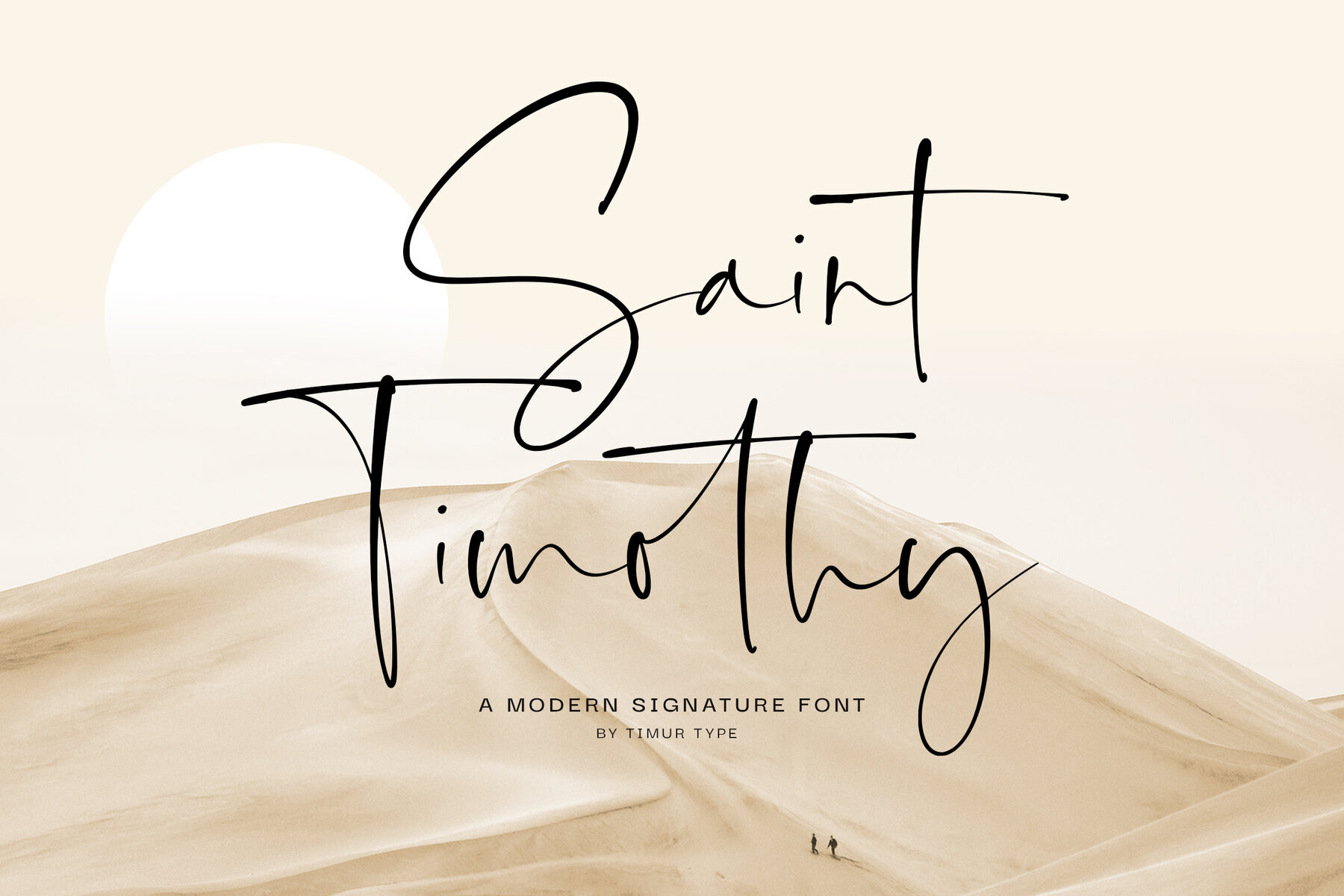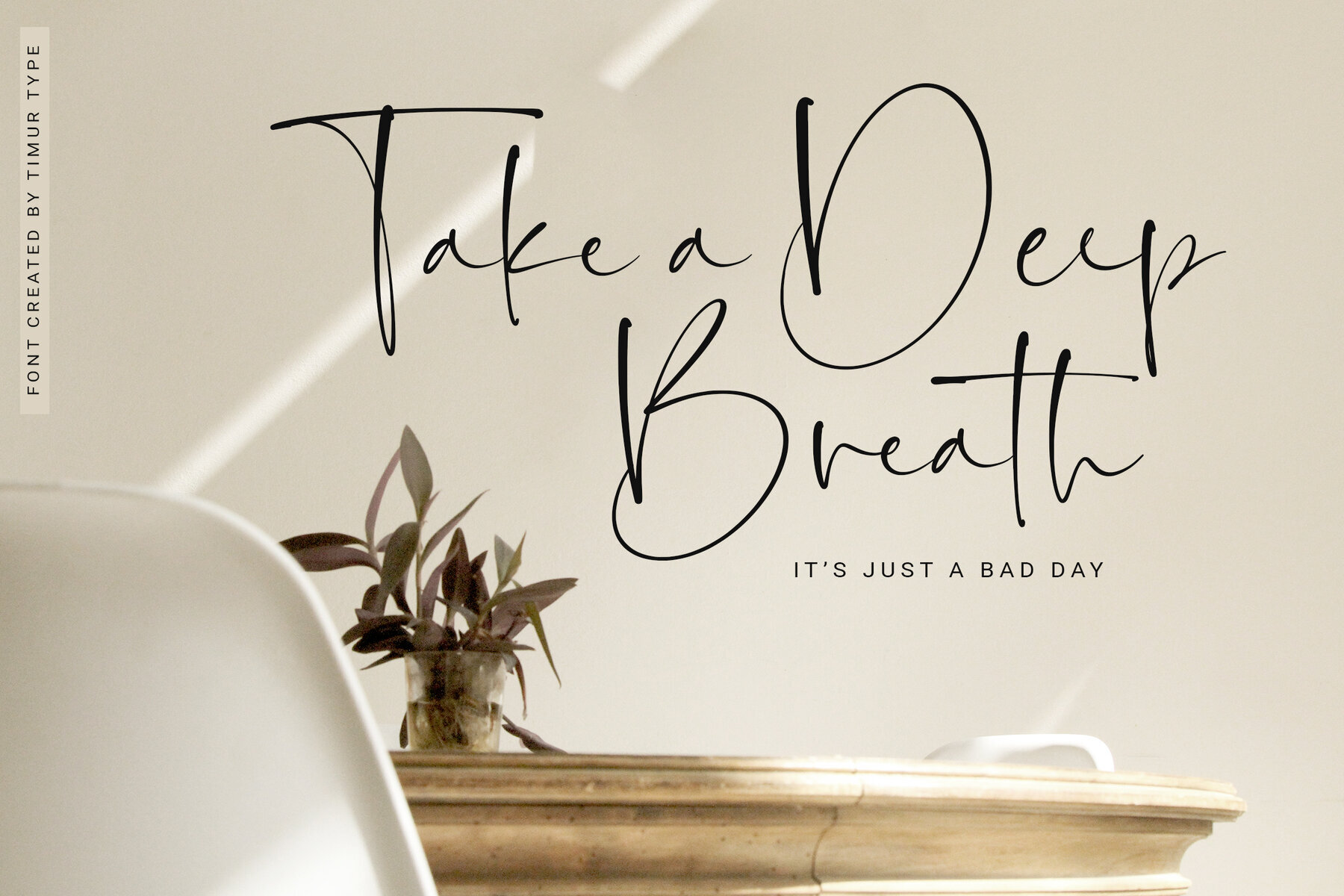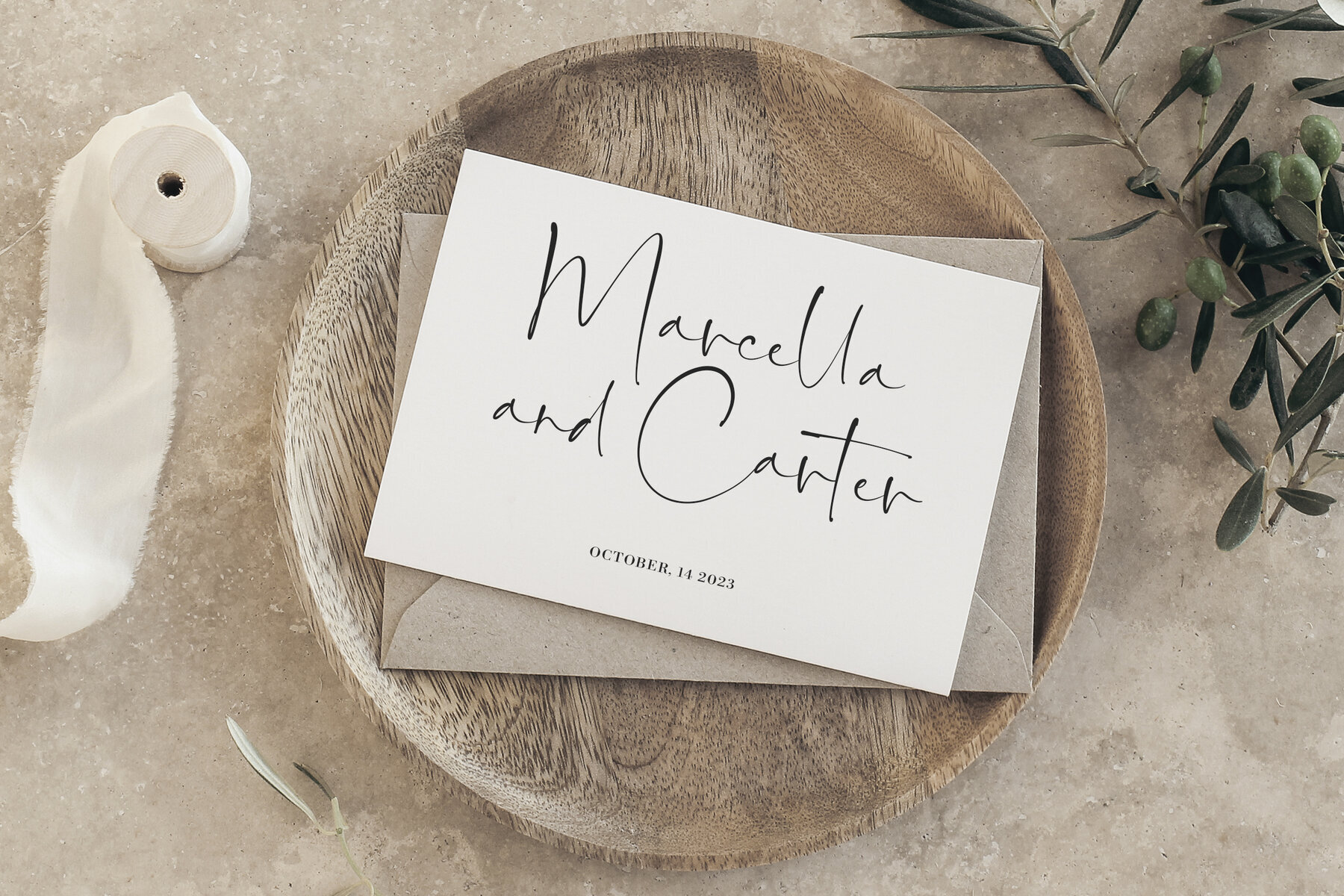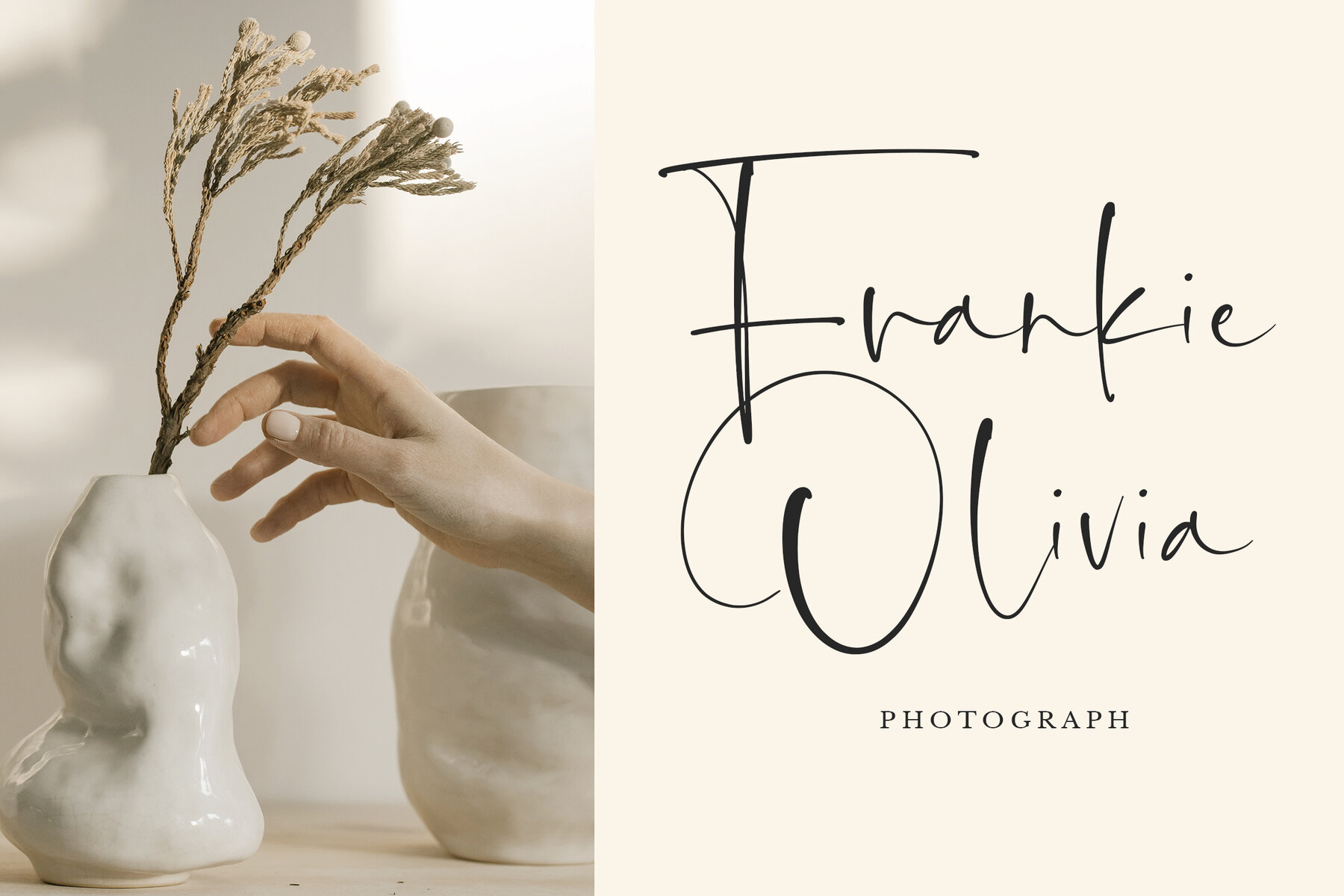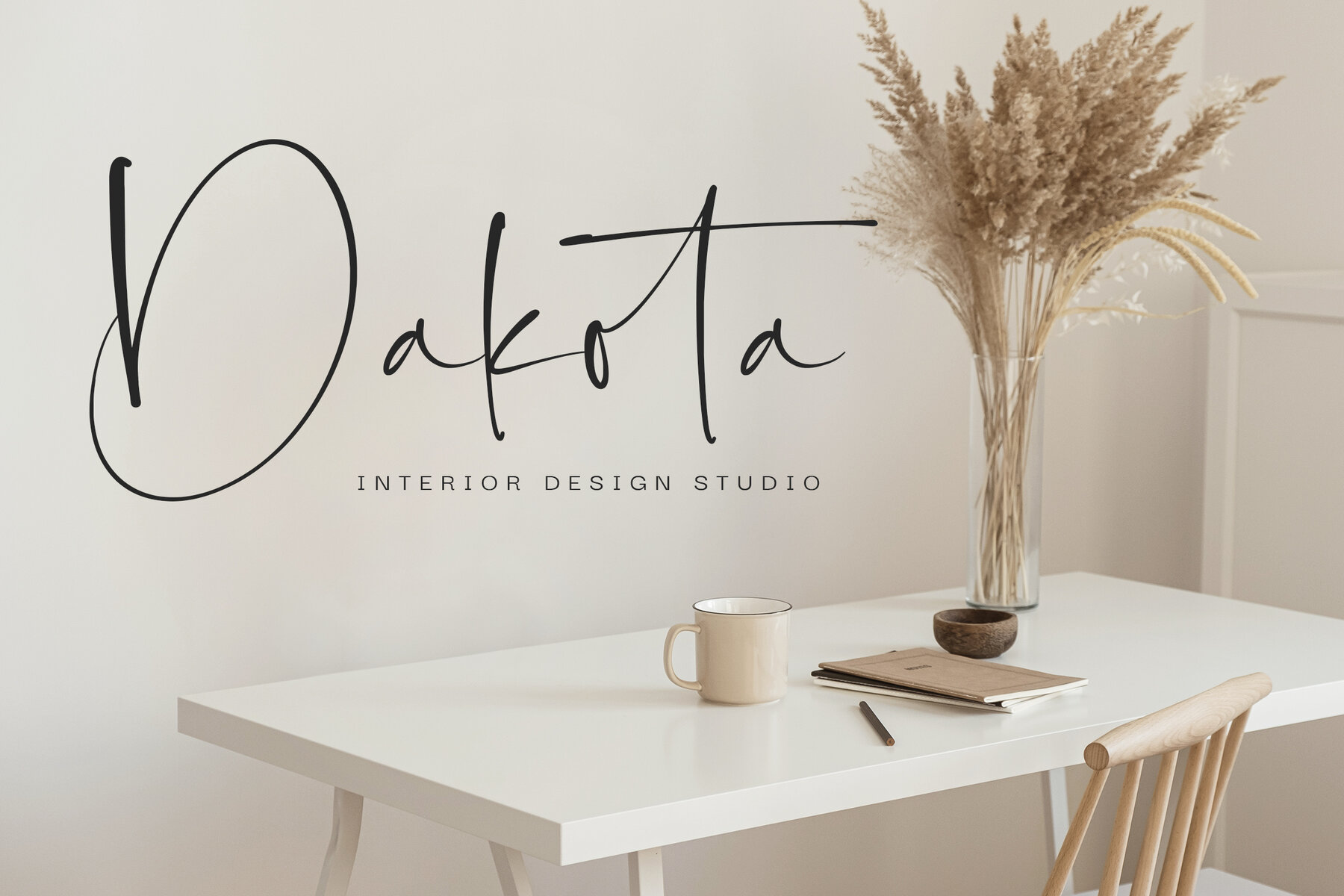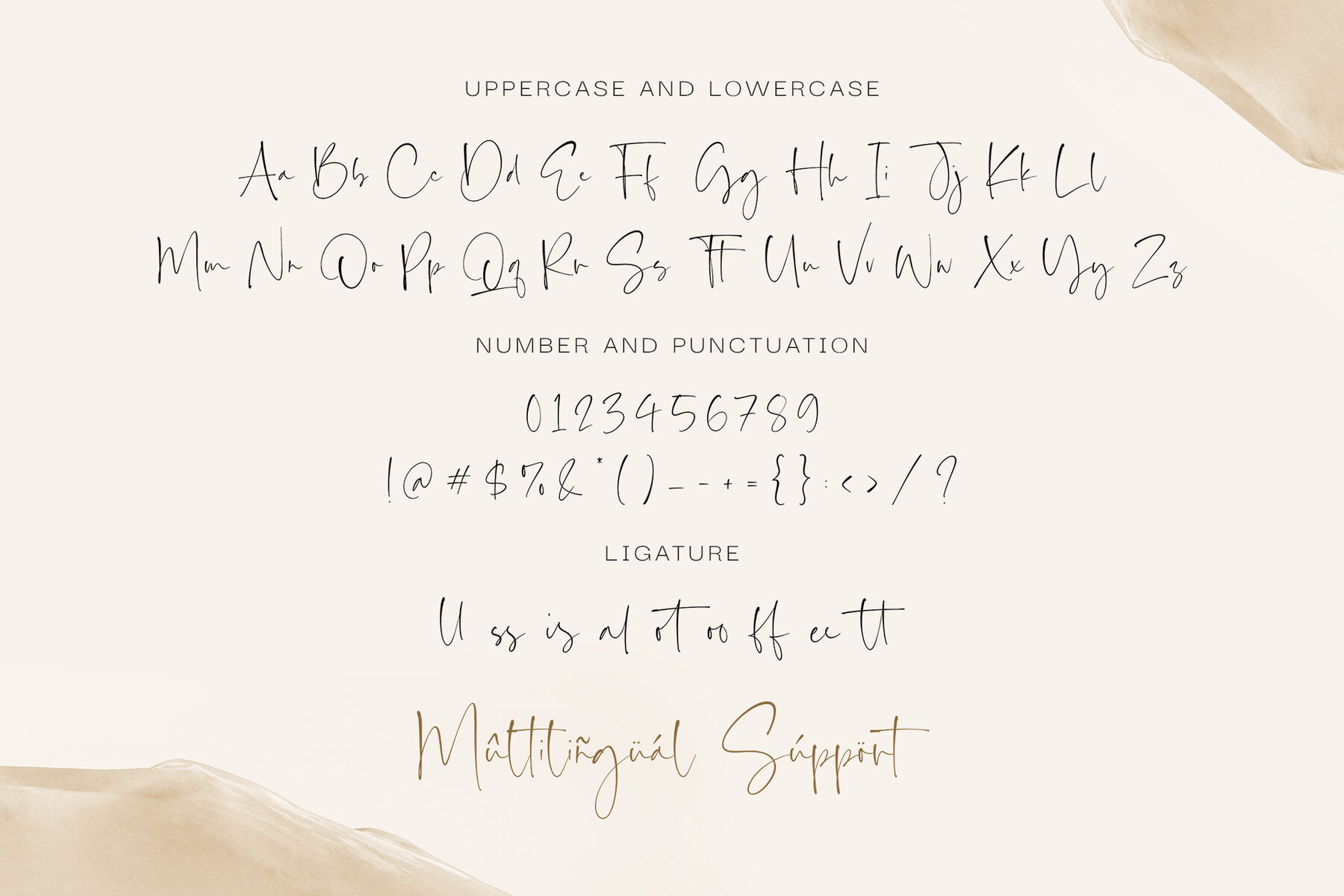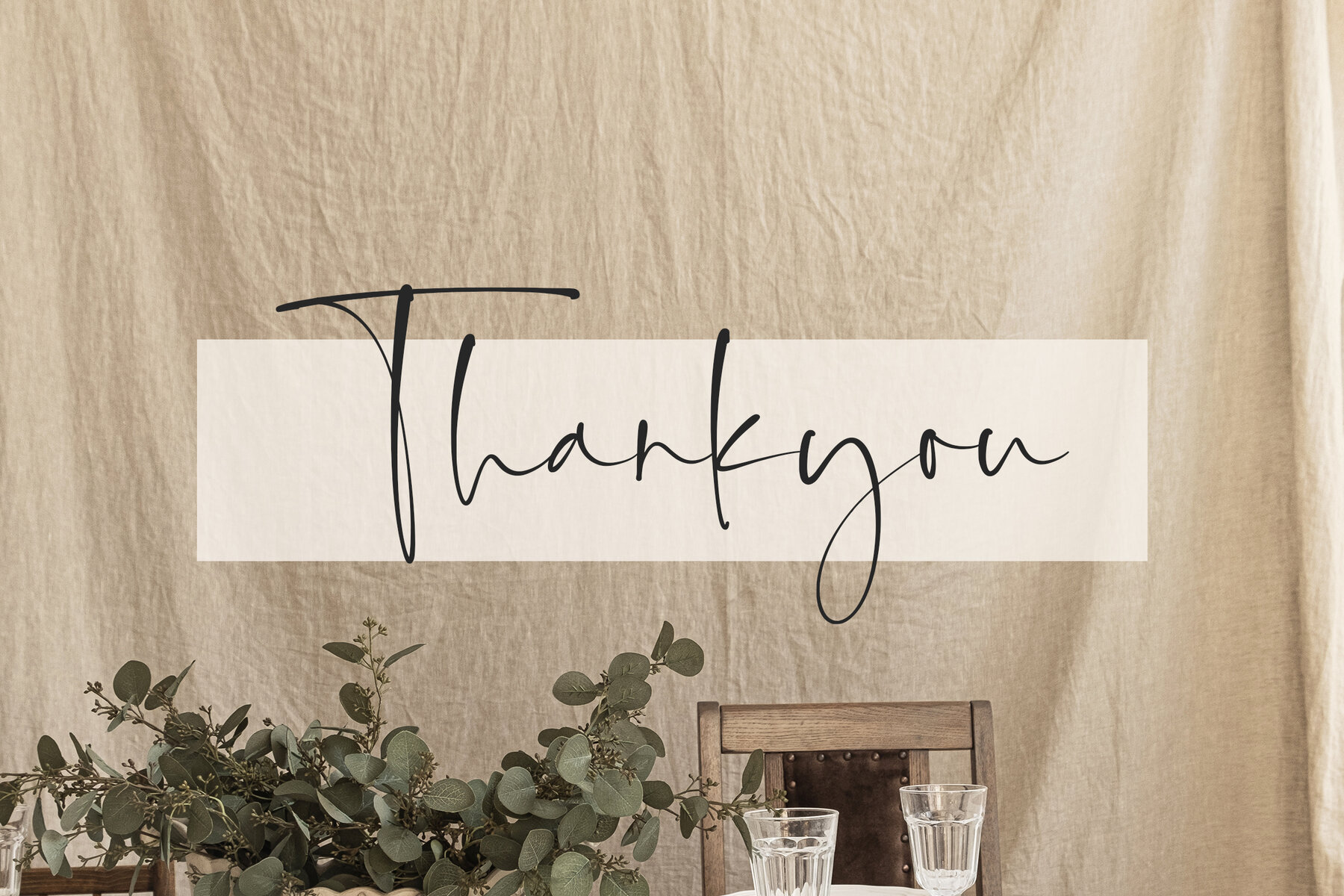
Saint Timothy Font
Saint Timothy
Saint Timothy is a Modern signature font that is modern and fresh, and will bring a warm and inviting feel to your business. Take advantage of the fonts and experience the magic for yourself. Saint Timothy font is perfect for product packaging, branding project, megazine, social media, wedding, or just used to express words above the background.